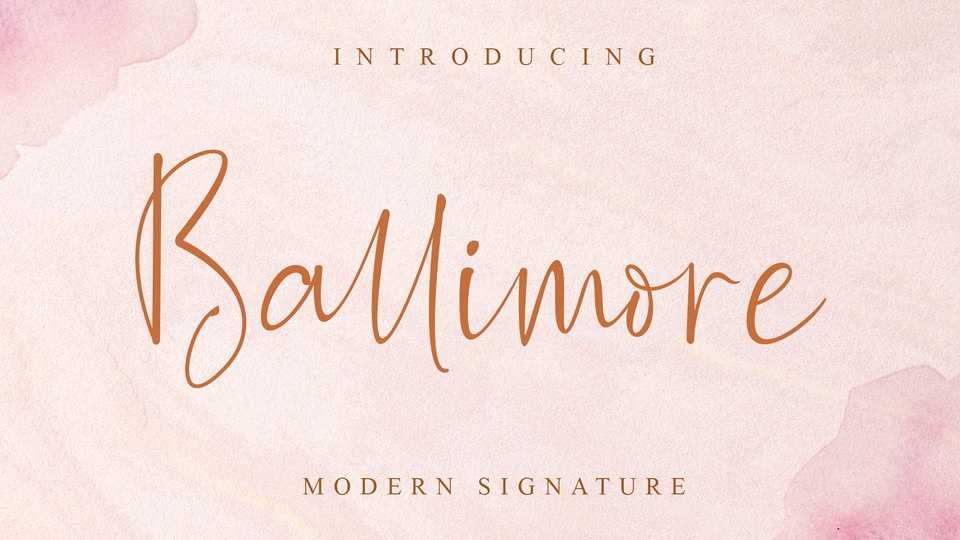
Download Ballimore font, a beautiful handwriting script with a modern signature style. Ballimore is perfect for branding, invitation, stationery, wedding designs, social media posts, advertisements, label, photography, watermark, special events or anything.
Designer: MJB Letters